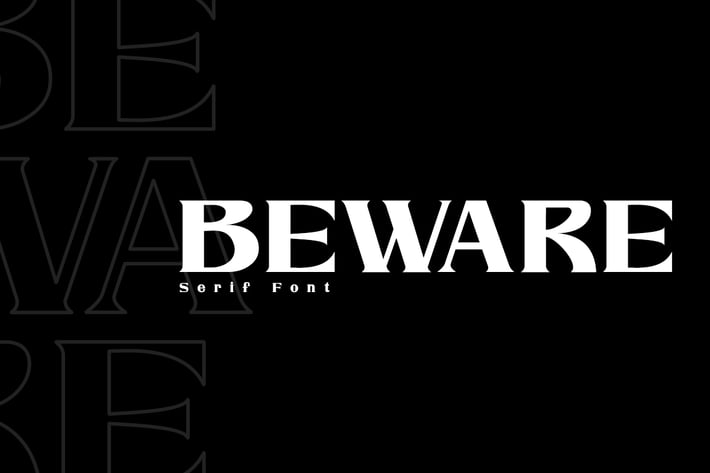
Beware - Modern Serif Font
BEWARE is modern serif font. Create from our talented font designer. The design of typeface will make your design more beautiful and inspiring. This font will suitable for any project, like branding, print template, logo and etc.